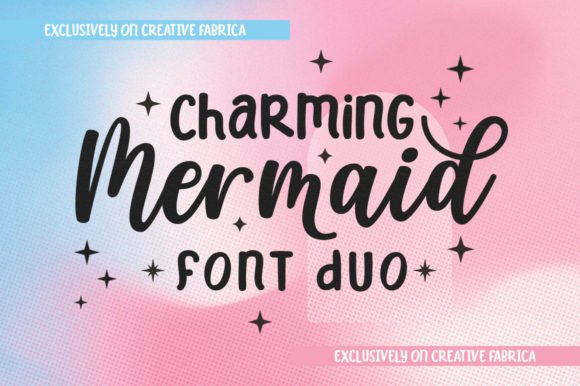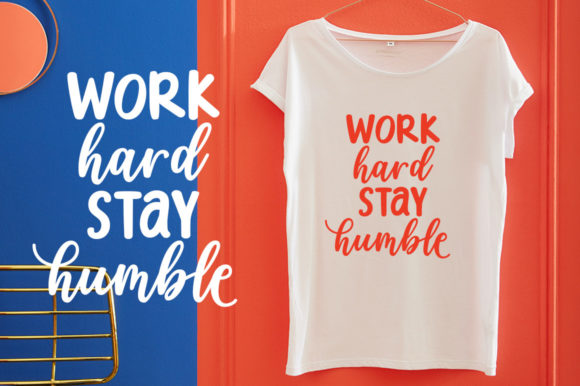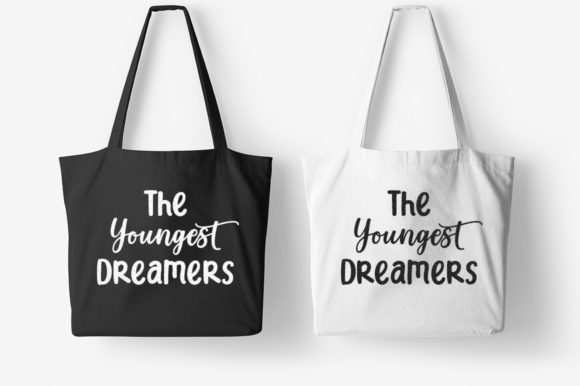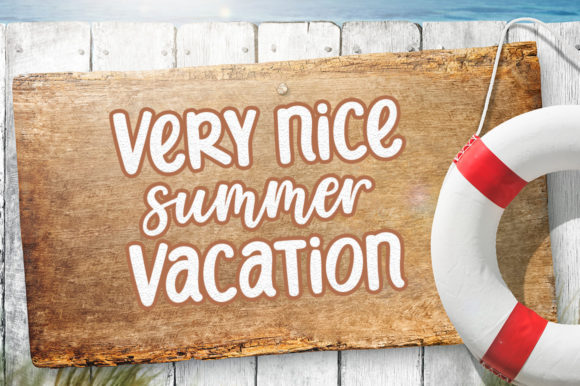
Discover the Magic of Charming Mermaid Font
Have you ever stared at a blank page, struggling to find the perfect font to match your creative vision? I know I have. It’s that moment of frustration when you wish you could conjure up a font that exudes warmth, whimsy, and a touch of magic. For designers and crafters alike, finding the right font can be a daunting task, but what if I told you that I’ve found a treasure that will make all your design dreams come true?
Enter the enchanting Charming Mermaid Font, a duo of script and sans serif fonts that will transport your designs to a world of underwater wonder. With its PUA encoding, accessing all glyphs and swashes is a breeze, making it perfect for adding a touch of elegance and charm to your crafts. Whether you’re a seasoned designer or a crafty enthusiast, the Charming Mermaid Font is a valuable addition to your toolkit, offering endless possibilities for creativity and self-expression.
Charming Mermaid Font Key Features
- Unique Characteristics: The Charming Mermaid Font features a whimsical, hand-drawn design with intricate details and a touch of elegance, making it perfect for creating eye-catching and sophisticated designs.
Review of “Charming Mermaid Font”
Overall, I found “Charming Mermaid Font” to be a delightful and whimsical addition to any design project. Here are a few things that stood out to me:
- ✨ The font’s playful, cursive feel is perfect for creating a magical atmosphere.
- ✨ The font’s versatility shines through in its various styles and weights, making it suitable for a range of applications, from children’s books to wedding invitations.
- ✨ The font’s subtle shimmer effect adds a touch of sophistication and elegance.
- ⚠️ The font may be too ornate for some designs, potentially overwhelming the content.
- ⚠️ Some letters may be difficult to read at smaller font sizes, which could impact readability.
- ⚠️ The font may not be suitable for formal or professional applications, where a more subdued tone is required.
Overall, I would recommend “Charming Mermaid Font” to designers looking to add a touch of whimsy and personality to their projects. While it may have some limitations, its unique charm and versatility make it a valuable addition to any design library.
The Charming Mermaid Font is perfect for:
- Whimsical and playful designs.
- Mermaid or ocean-themed projects.
- Children’s books or educational materials.
For the most charming results, use the font in conjunction with pastel colors and delicate illustrations.